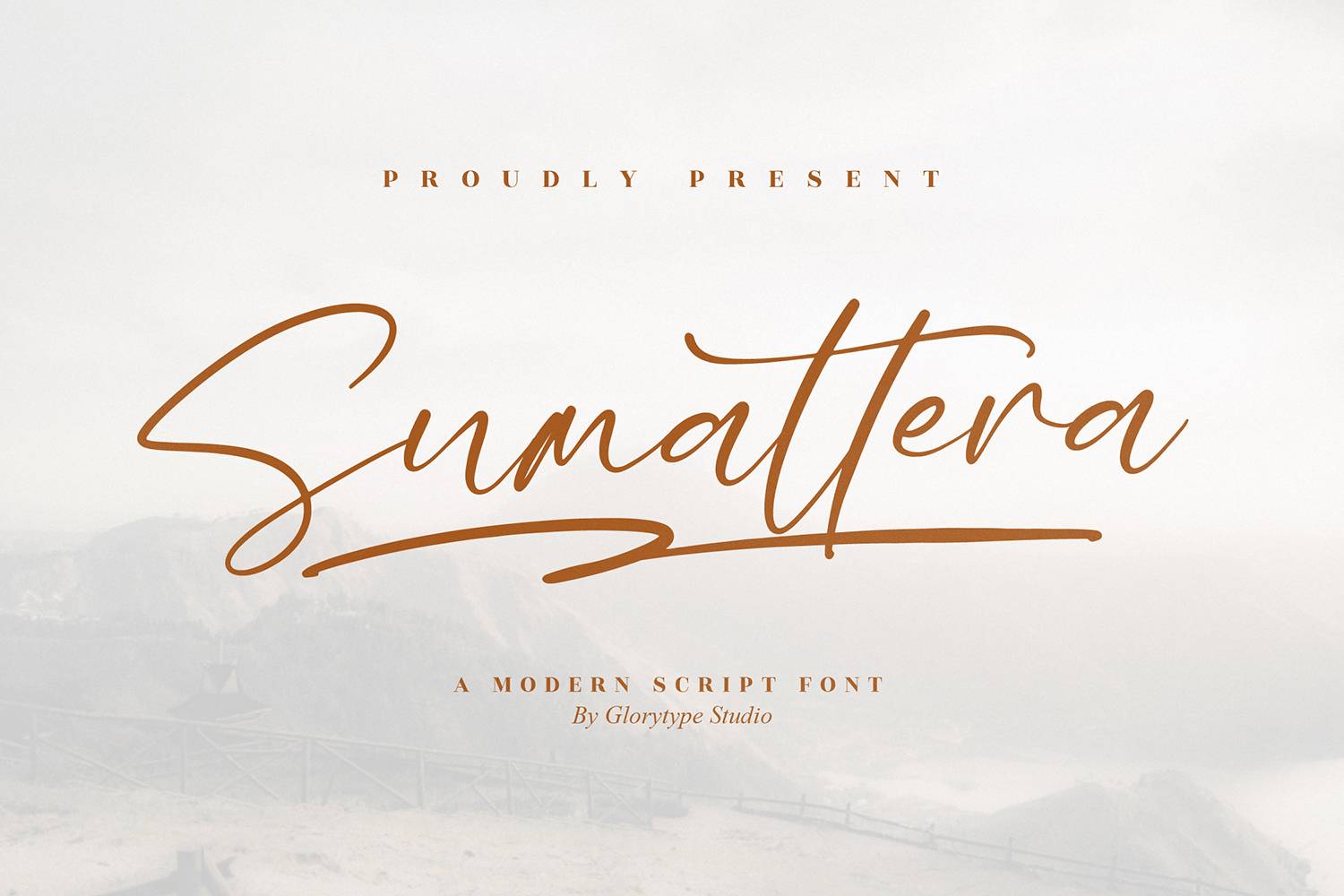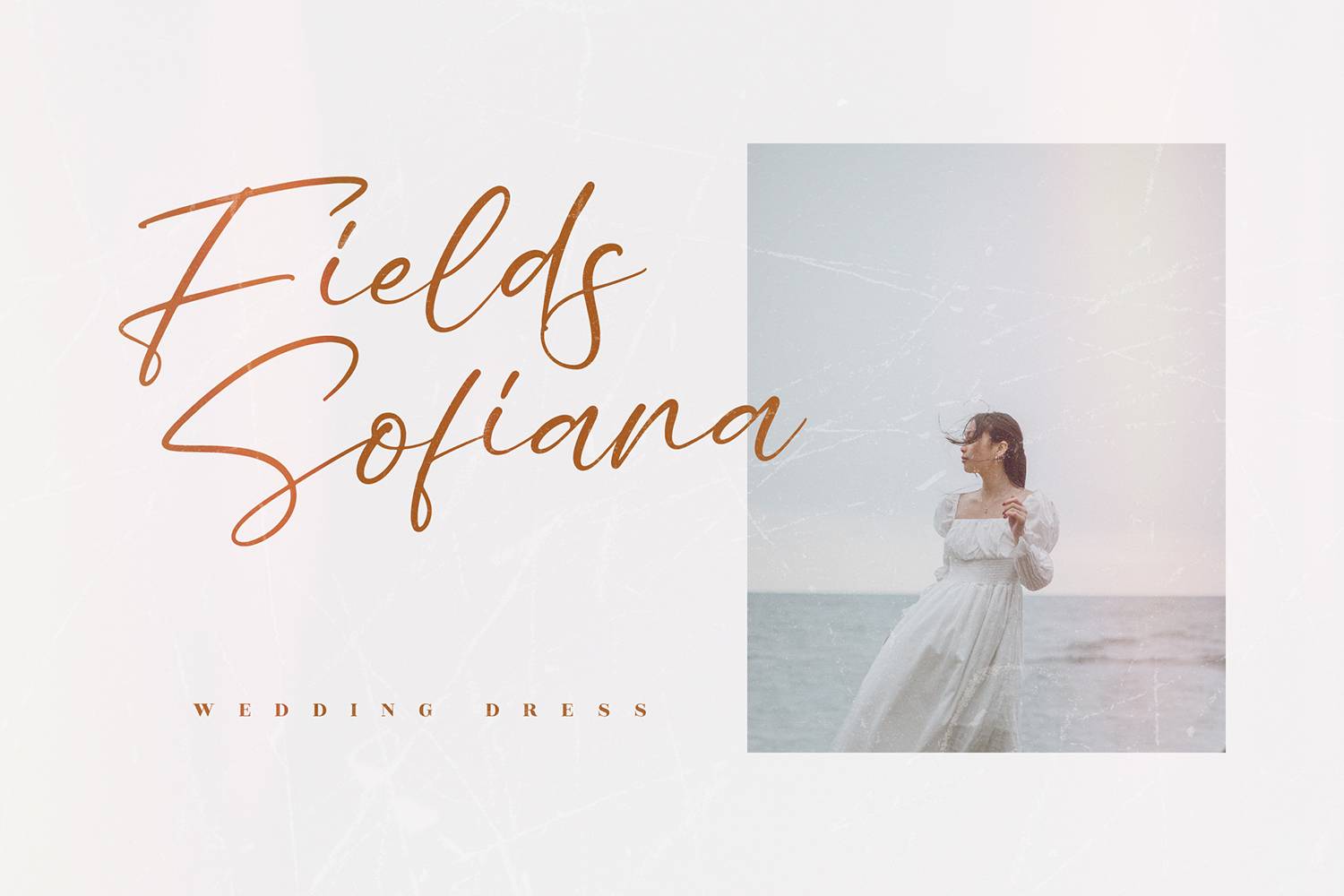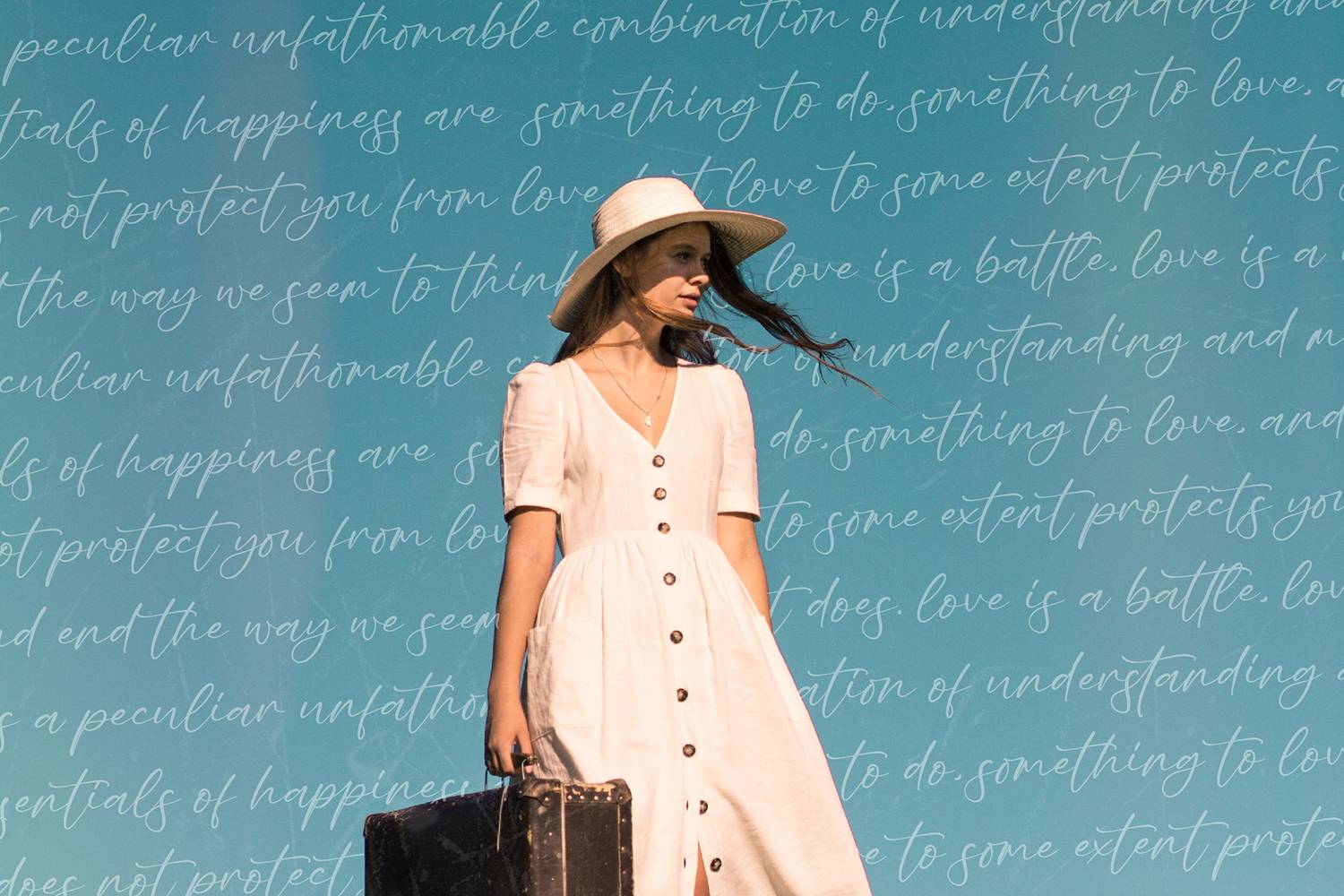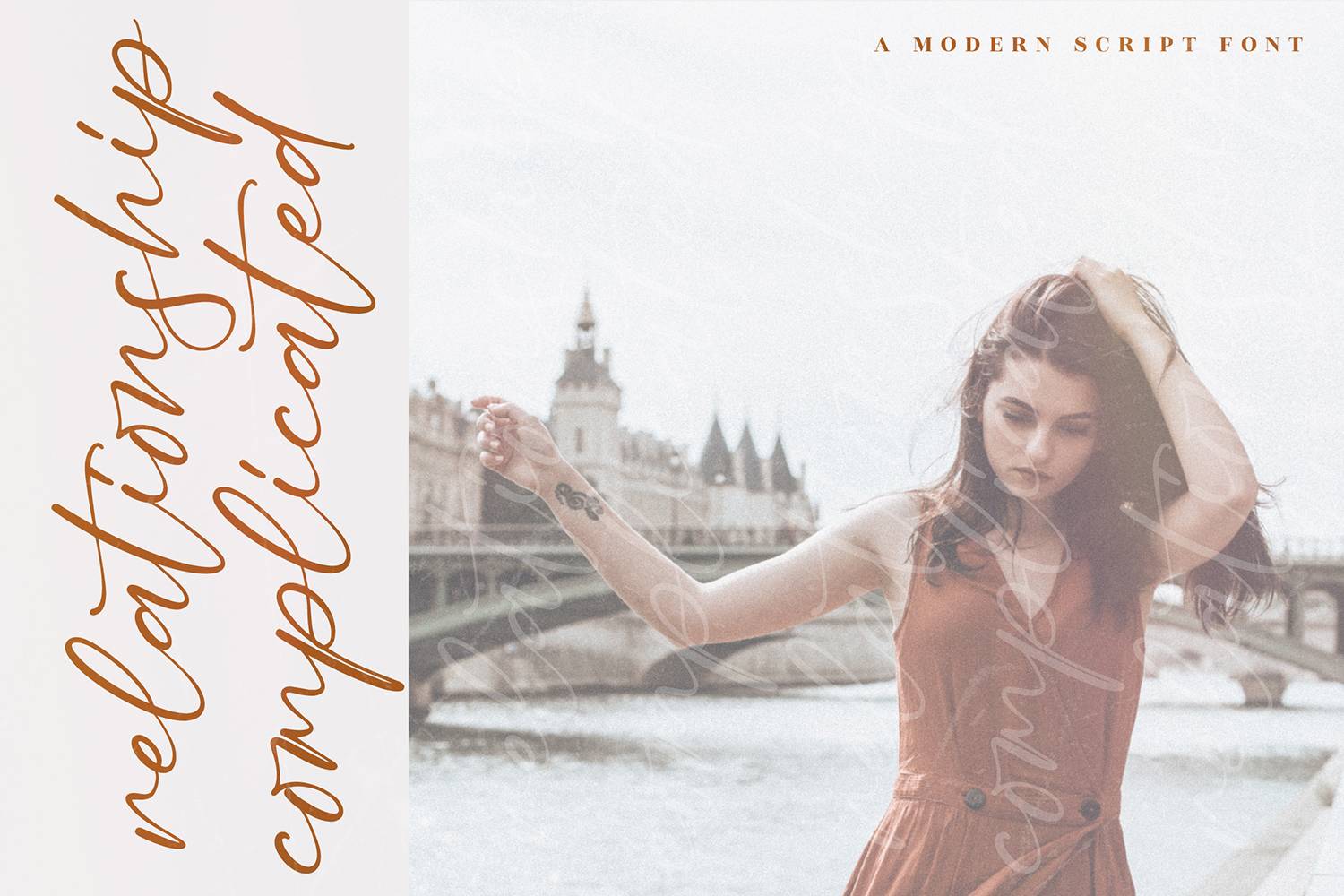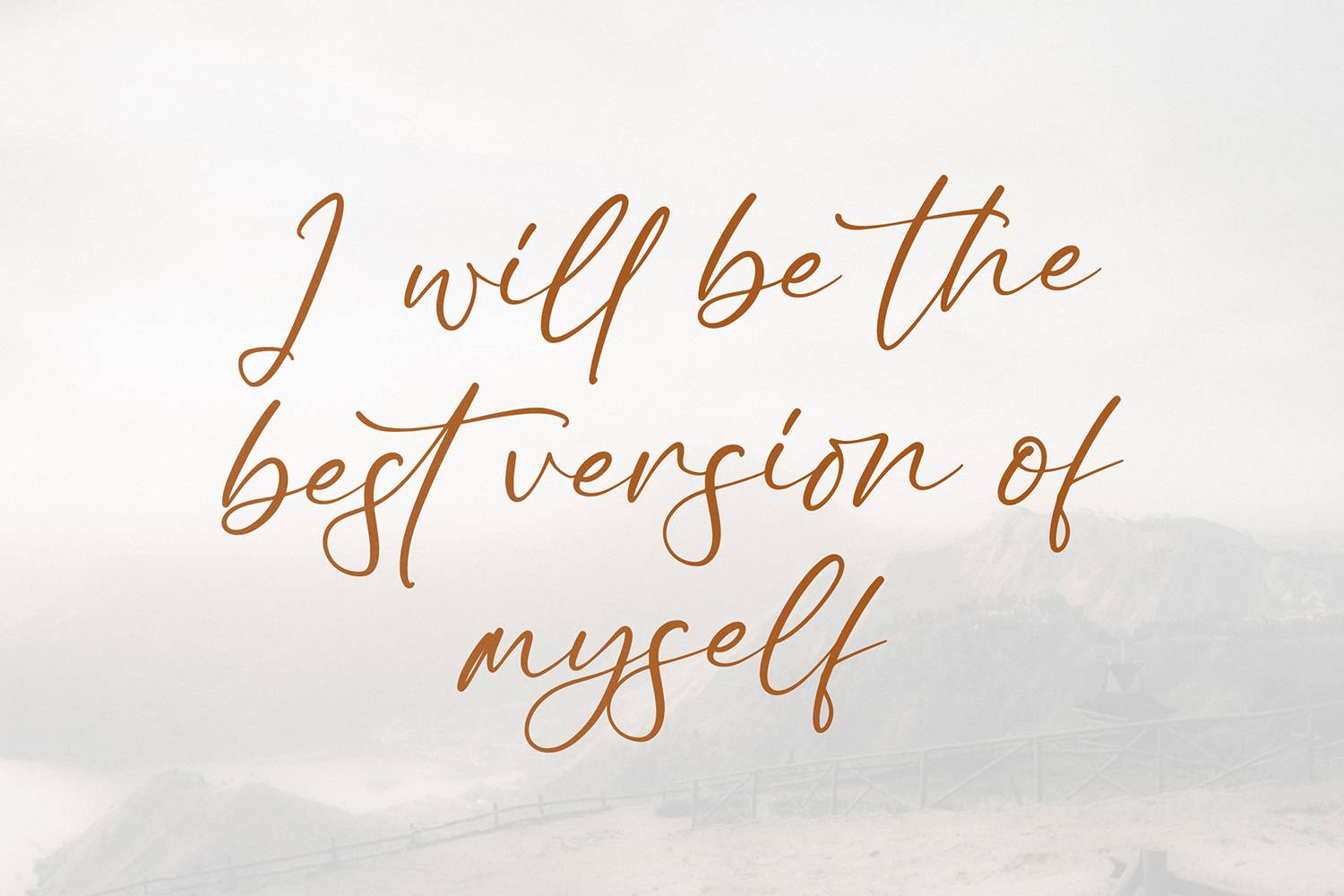
Sumattera is a delicate and elegant script font with a light, flowing stroke that mimics natural handwriting. Its slender and graceful letterforms create an intimate, stylish feel, making it perfect for invitations, branding, and creative projects that seek a personal, refined touch. This font works best in designs that require a soft, sophisticated atmosphere without sacrificing readability.
Sumattera Font
About Sumattera Font